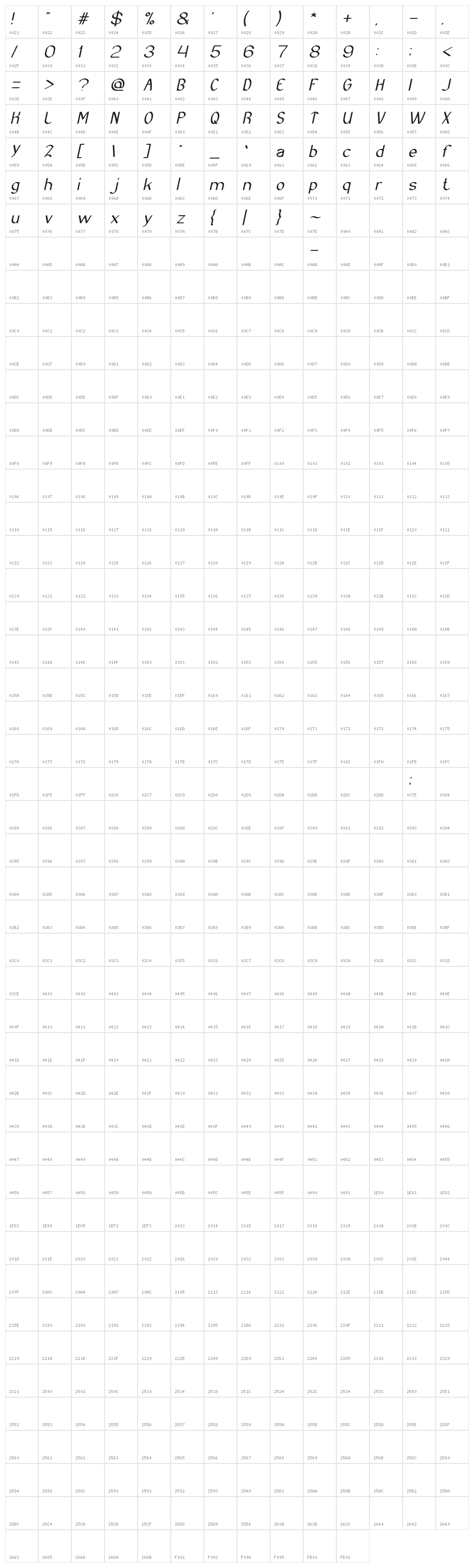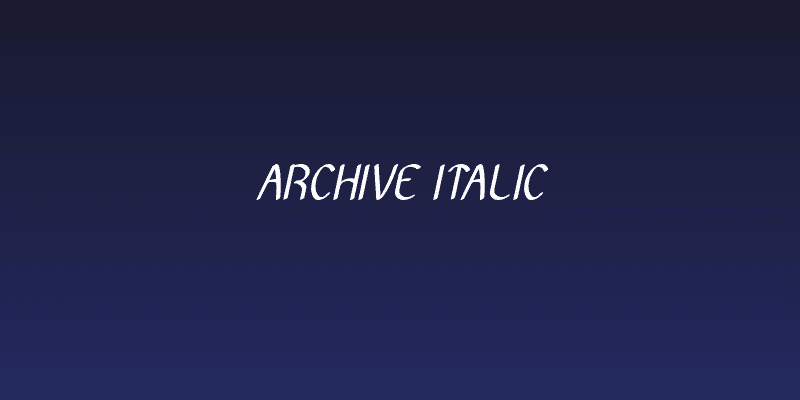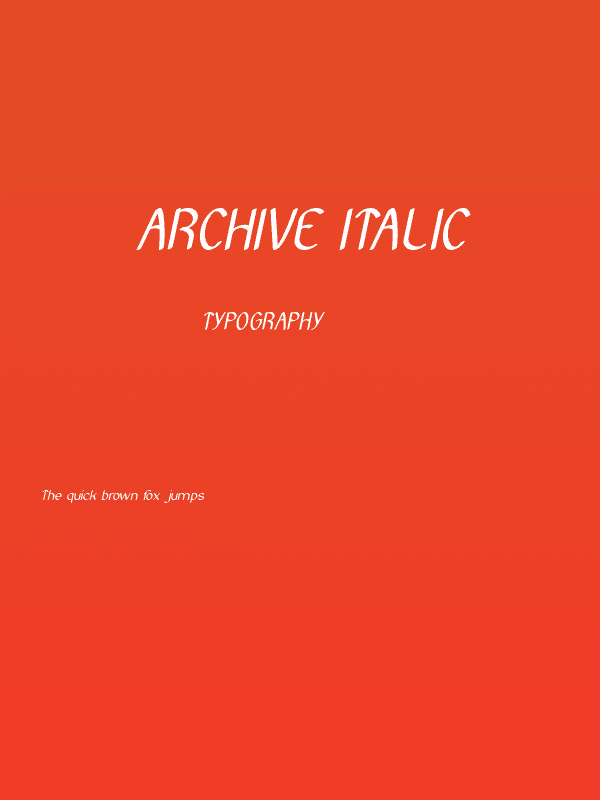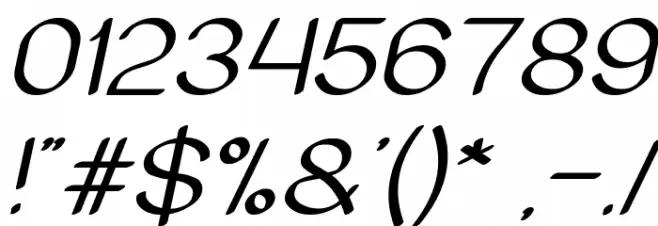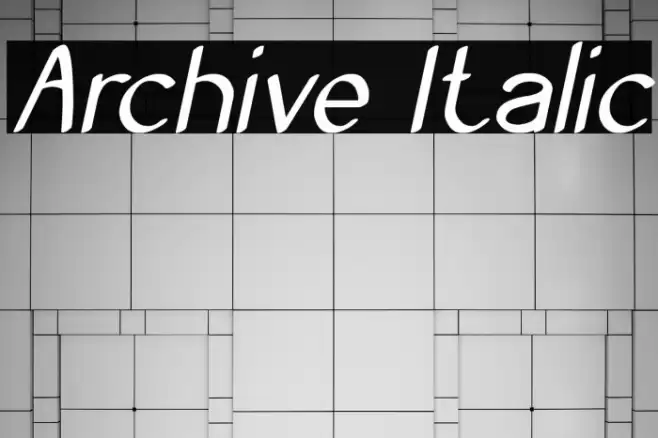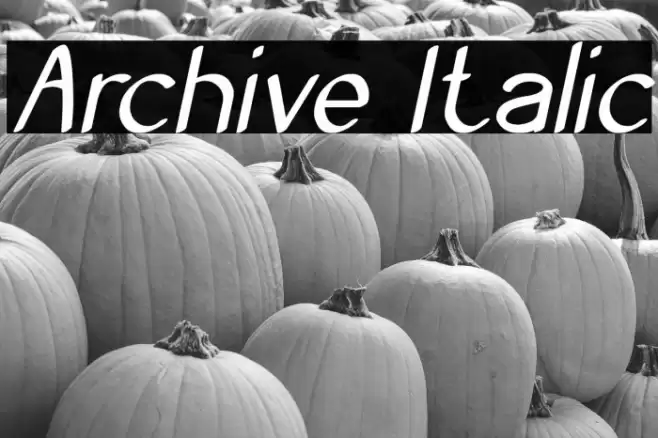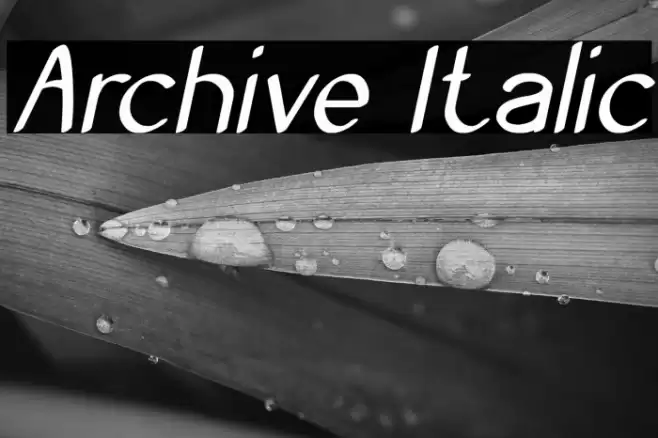
Archive Italic Font
This font features a sleek and elegant italic style, characterized by its smooth, flowing curves and slightly slanted orientation. The letters are well-proportioned, with a consistent stroke width that adds to its readability. The uppercase letters stand tall with a slight forward lean, while the lowercase letters maintain a harmonious balance with their rounded forms. Numbers and special characters are designed to complement the alphabet, ensuring a cohesive look across all text. This font exudes a sense of sophistication and modernity, making it suitable for a variety of design applications.